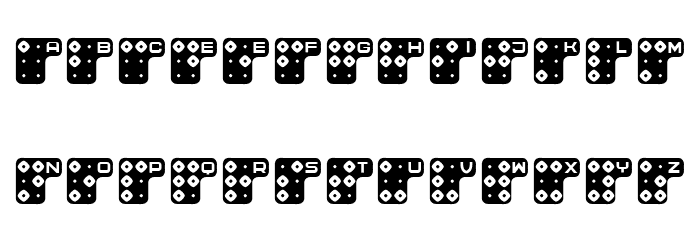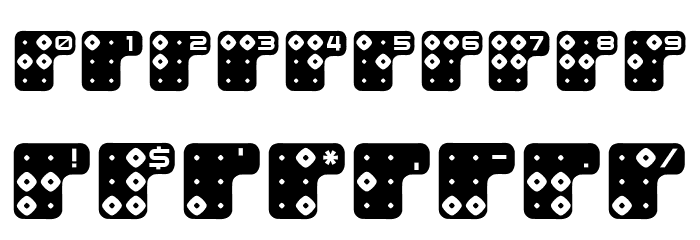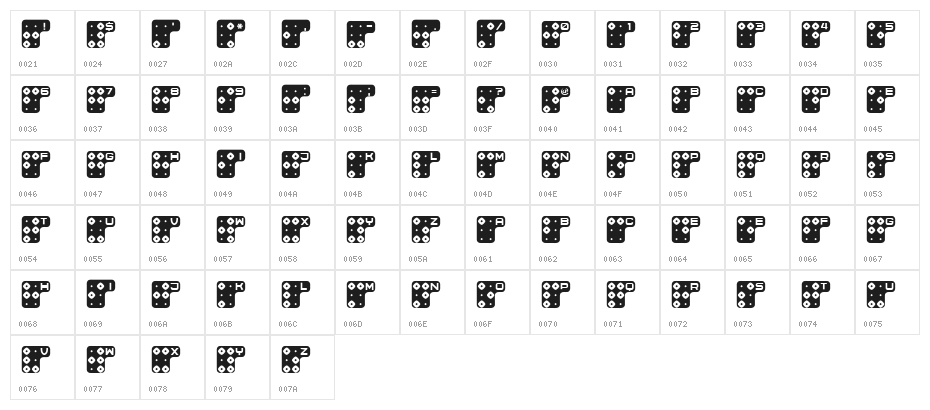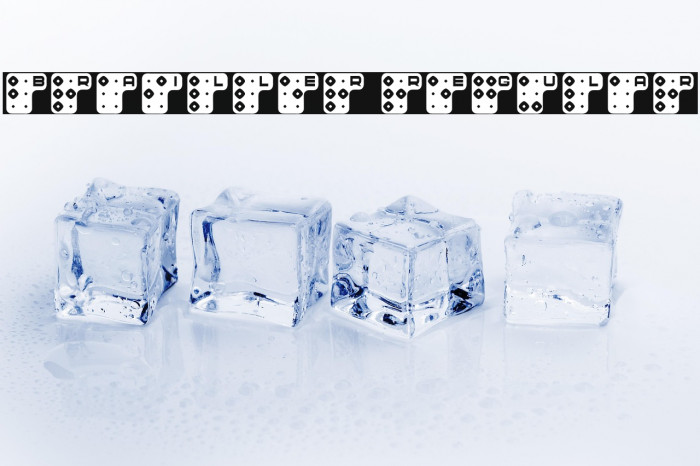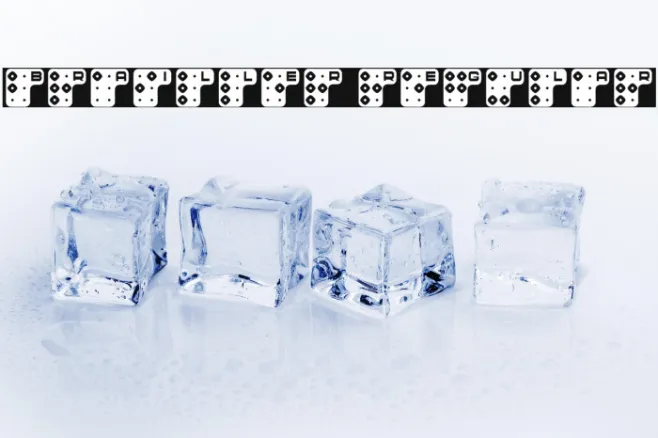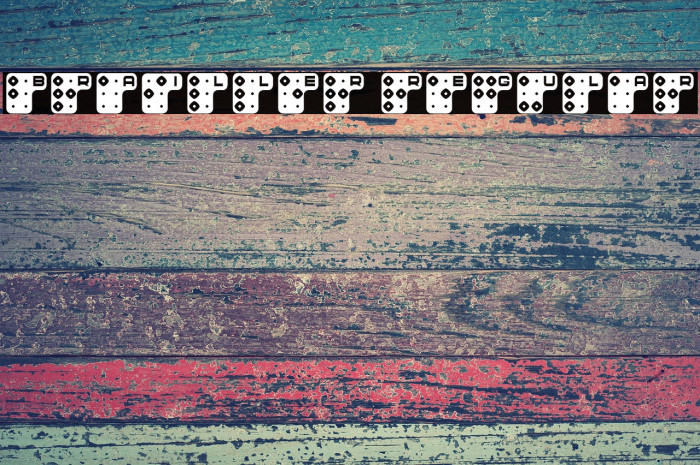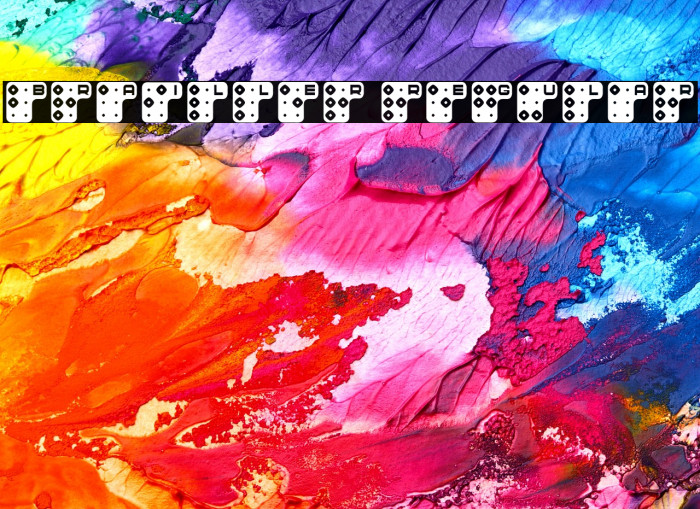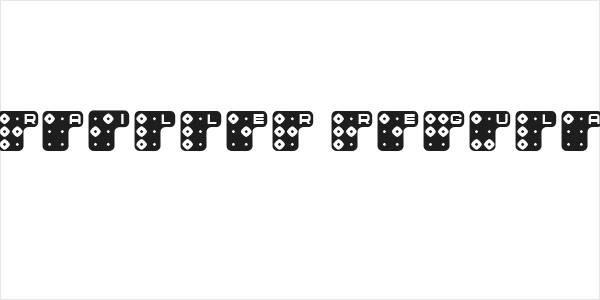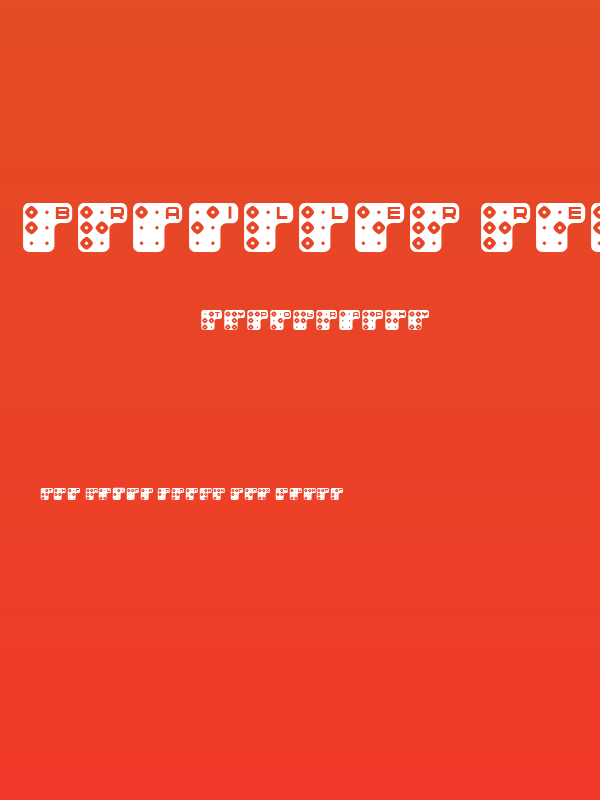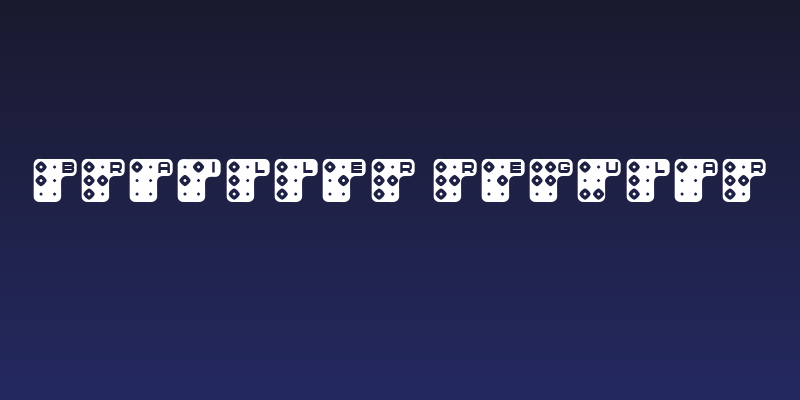
Brailler Regular Font
This font is a creative representation of Braille, where each character is designed to resemble the tactile writing system used by visually impaired individuals. The characters are composed of a grid of dots, mimicking the Braille pattern, but are visually represented in a bold, graphic style. Each letter and number is distinct, with a unique arrangement of dots that corresponds to the traditional Braille system. The font is highly decorative and serves as both a visual and educational tool, bridging the gap between visual typography and tactile communication.
A decorative font inspired by Braille, featuring bold dot patterns.
- Proposed Projects: Ideal for educational materials, accessibility awareness campaigns, and creative design projects that aim to incorporate Braille elements.
- Use Case: Logos, Educational materials, Accessibility projects